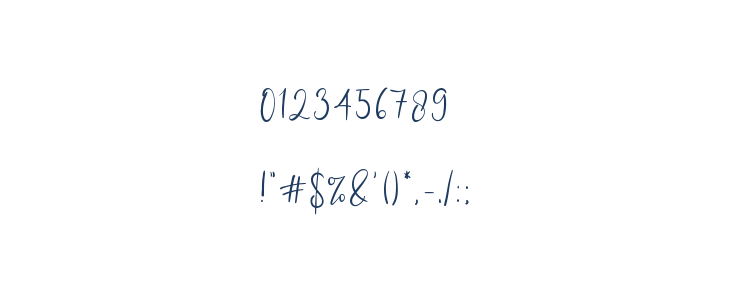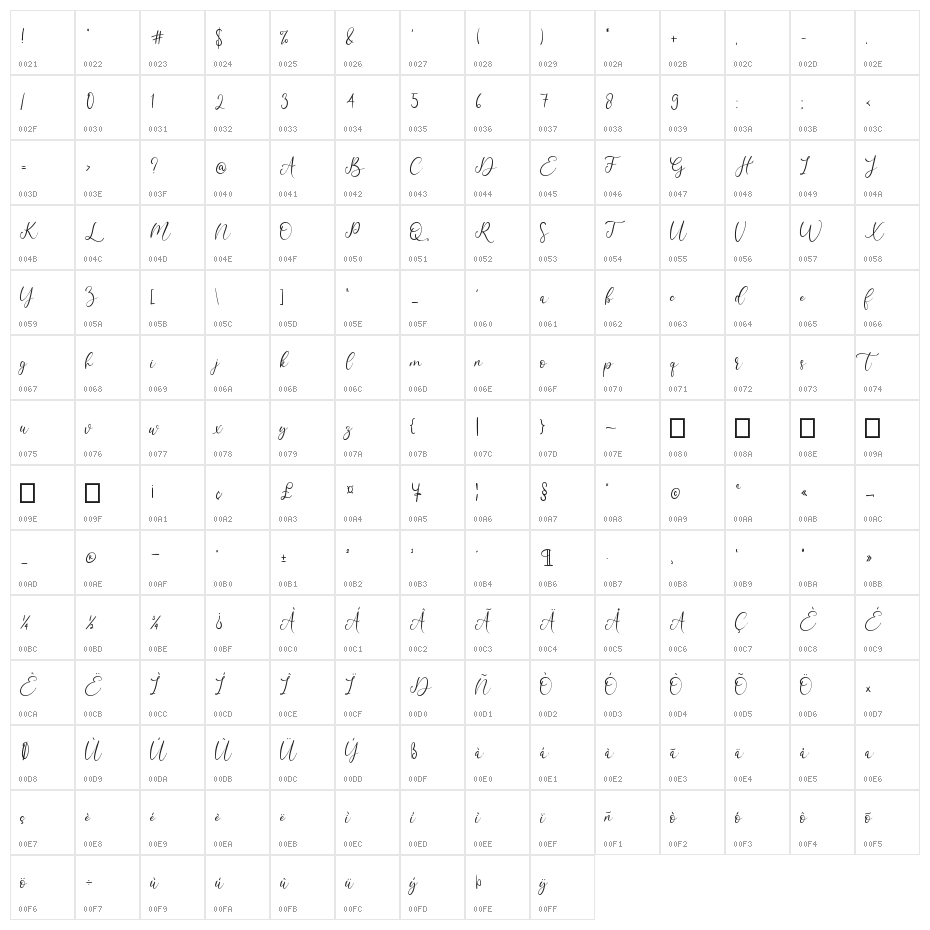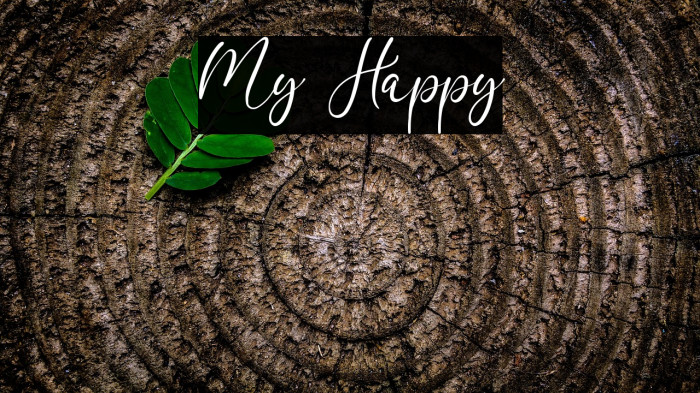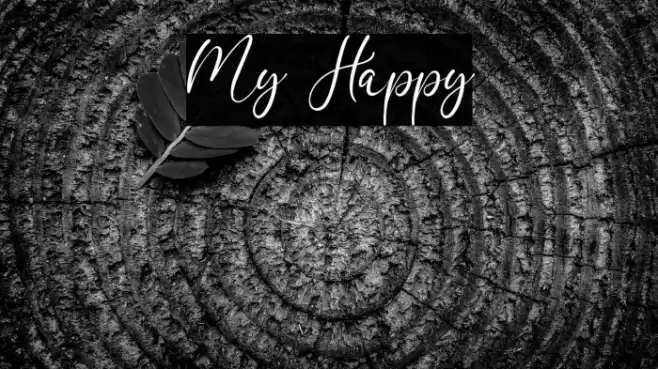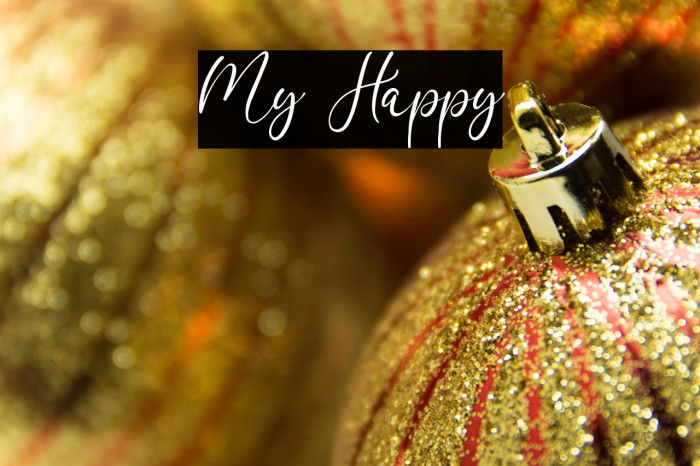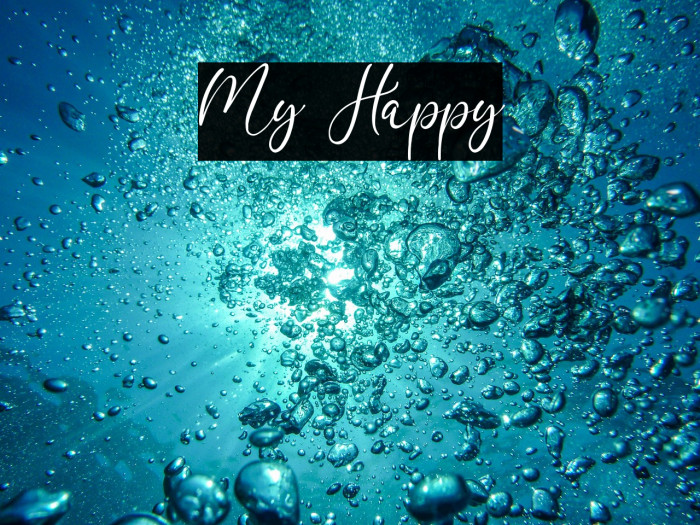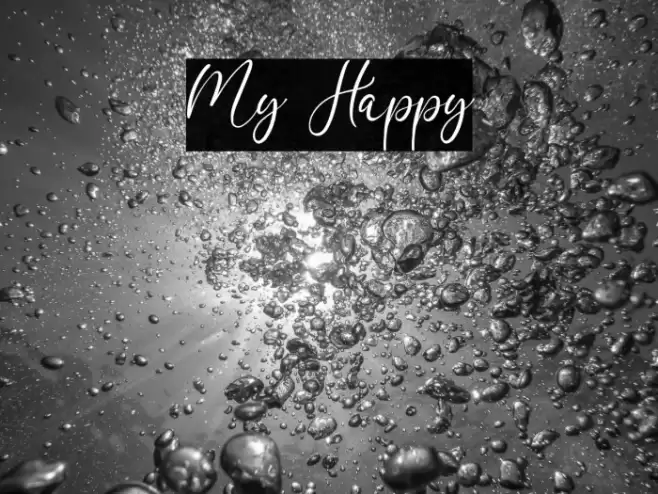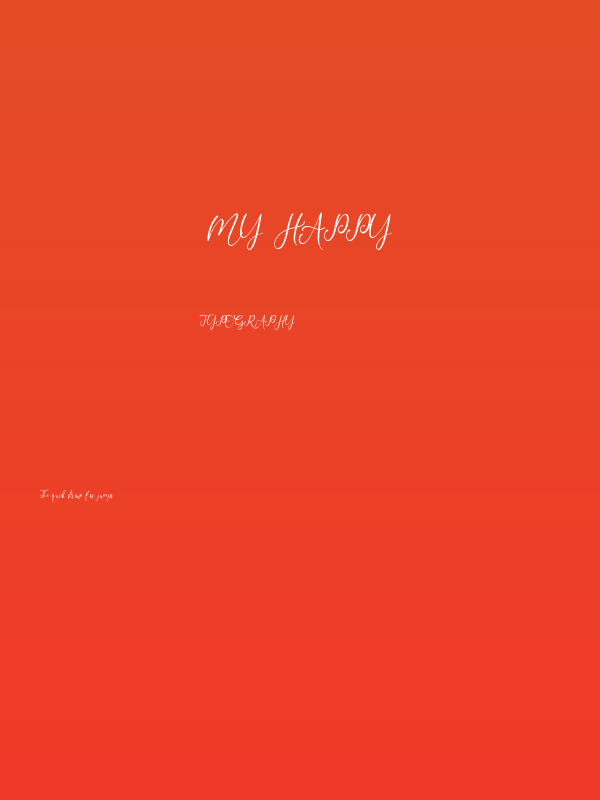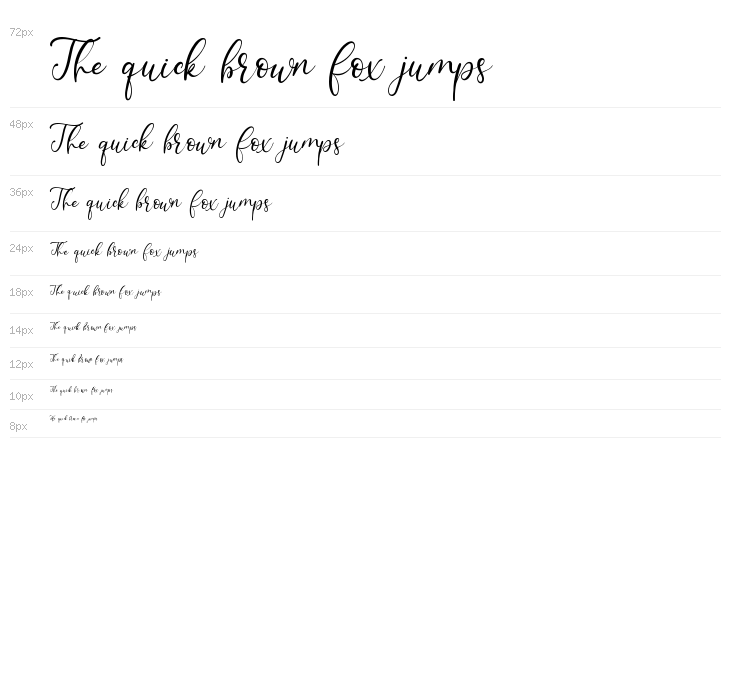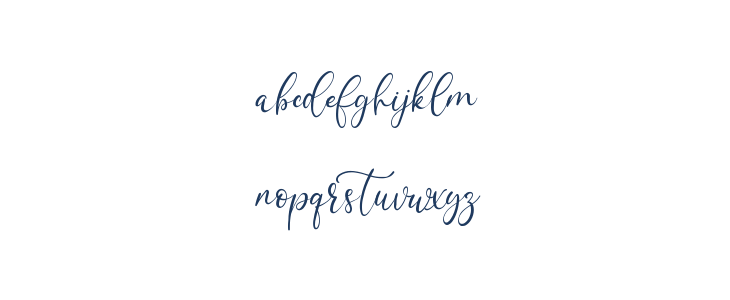
My Happy Font
My Happy Description
This elegant script font features fluid, cursive strokes that convey a sense of sophistication and grace. The letters are interconnected, creating a seamless flow that is both artistic and readable. The uppercase characters are slightly more elaborate, with flourishes that add a touch of drama, while the lowercase letters maintain a consistent rhythm. The numerals and special characters are designed to match the overall style, ensuring a cohesive look across all text. This font is perfect for projects that require a personal, handwritten touch.